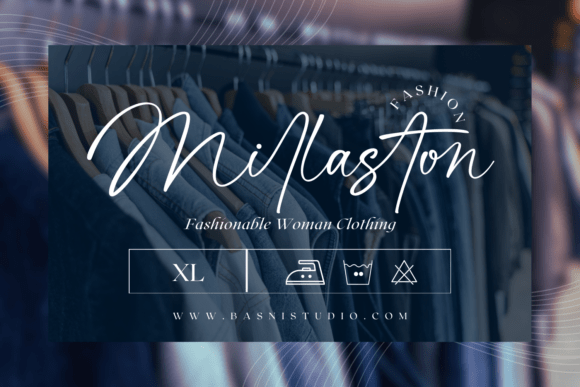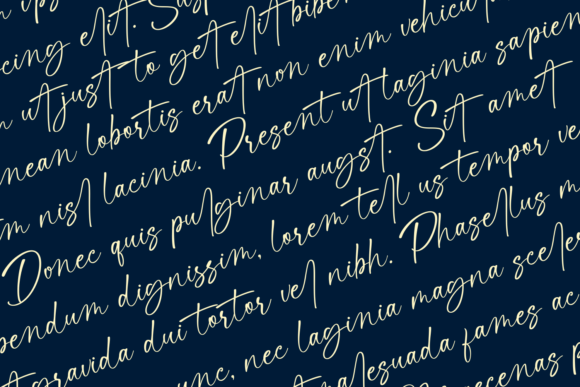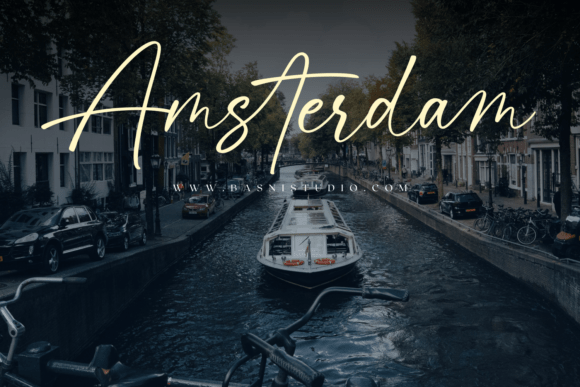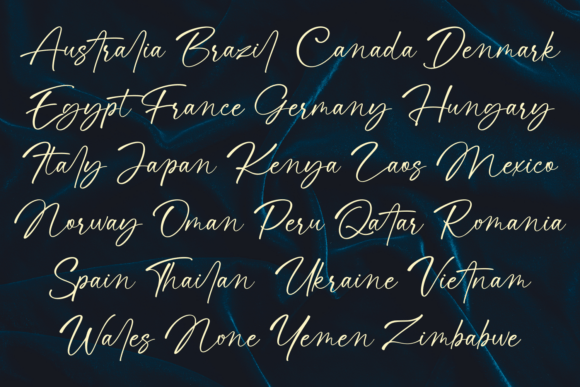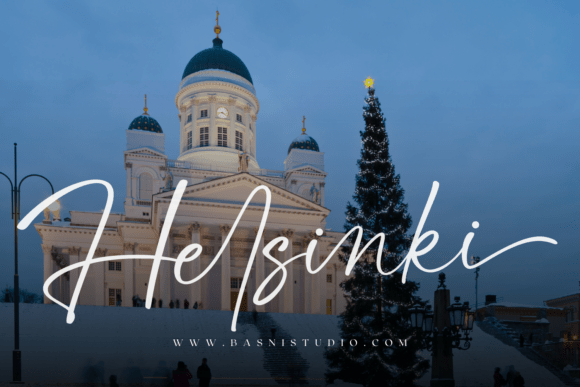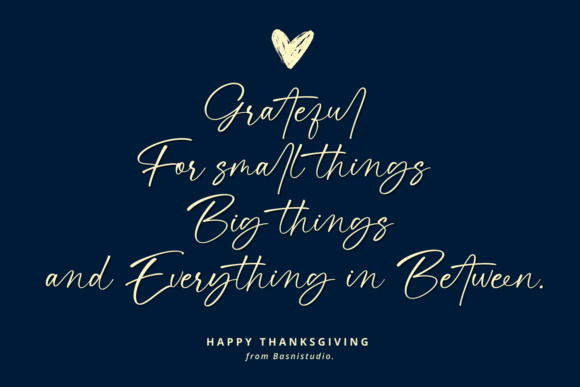
Introduction to Simsatigan Font Font
Fonts play a crucial role in design, and the Simsatigan Font font is a typeface that brings both character and versatility to any project. Whether you’re working on a branding project, a website, or a print design, the Simsatigan Font font offers a unique style that can elevate your work.
Simsatigan β Casual Handwritten Font created with real pen strokes for a natural look and casual touch to everything from branding and social media to invitations and packaging.
Natural & Casual β Perfect for taglines, quotes, greeting cards, and more Authentic Handwritten Feel β Created with real pen strokes for a natural look Easy to Use β Works seamlessly with all major design programs Whether youβre building a powerful brand identity or crafting a standout design, Simsatigan a Handwriting Font Created with real pen strokes for a natural look gives you the creative edge you need .
Key Features of Simsatigan Font Font
Why Choose Simsatigan Font Font?
The Simsatigan Font font is more than just a typeface β it’s a design tool that helps you communicate your message with style and clarity. Its unique character set and versatile design make it suitable for a wide range of applications, from elegant invitations to bold headlines.
With its carefully crafted letterforms and balanced proportions, the Simsatigan Font font ensures readability and visual appeal across all mediums.
What makes Simsatigan Font font special?
The Simsatigan Font font stands out with its unique design, exceptional readability, and versatility across various design applications.